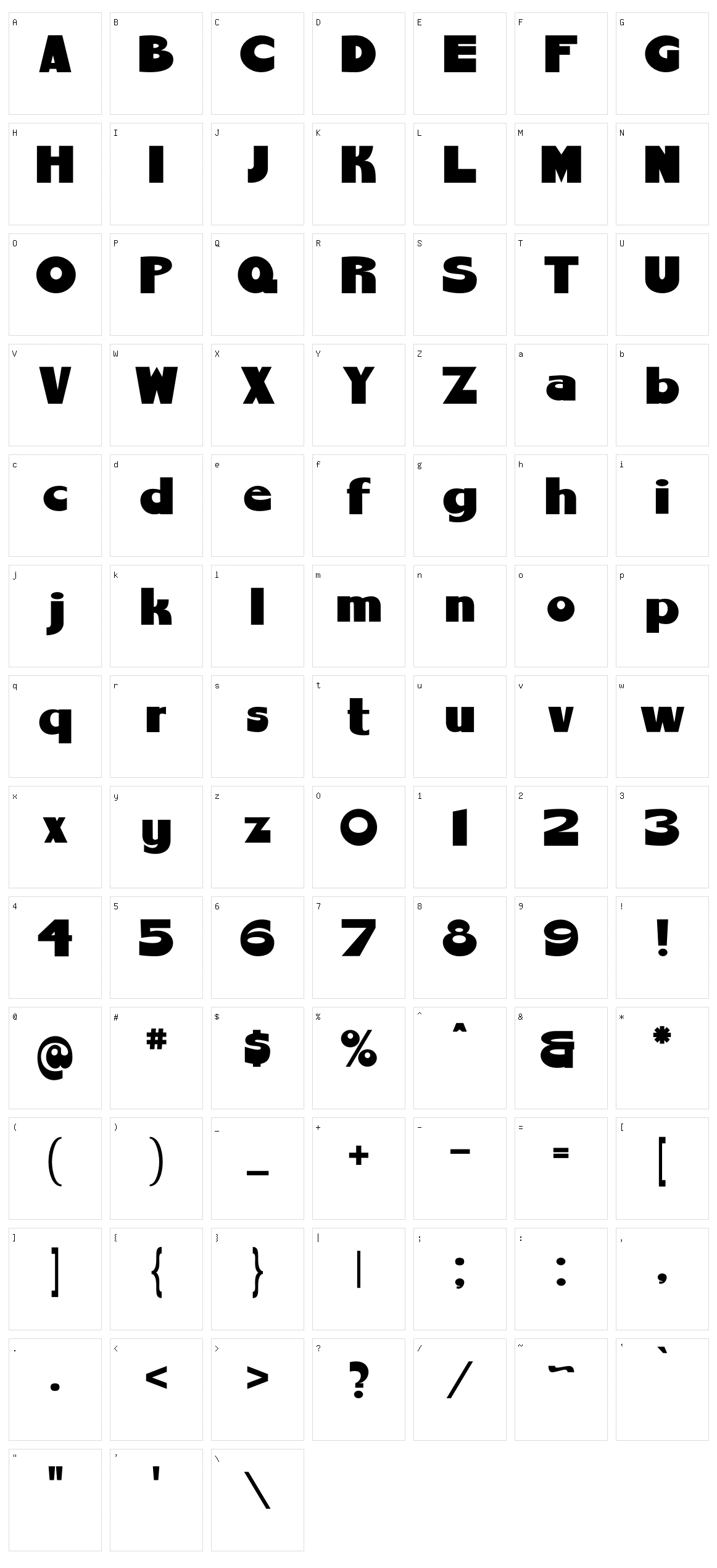
This is a 60s-70s retro-styled font I did from scratch working with CorelDraw and FontForge. It is one of my first creations that I'm really proud of, and I wanted to share to the font/art community.
Included in the font are two Basic Latin Characters, Cyrillic, Greek, Vietnamese, Turkish and other foreign accented characters. There's also Punctuation, Currency, some Symbol and Letter-like characters, I may attempt to update soon with other characters.